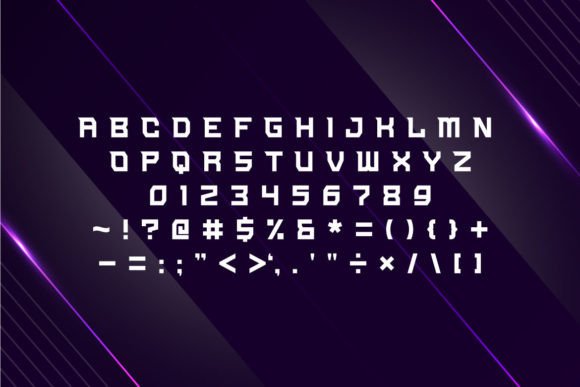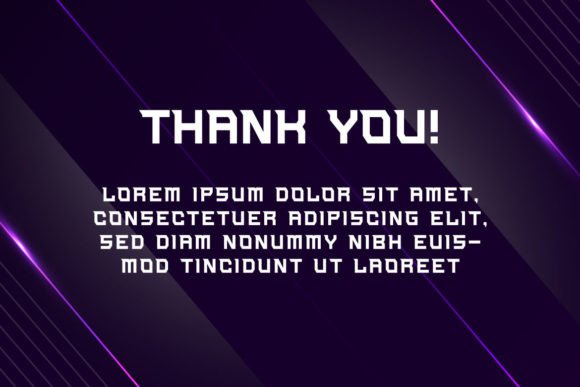
Godan Font: A Modern Display Font for Crafty Ideas
Are you a designer or crafter looking for a unique and modern font to elevate your creative projects? Look no further than Godan Font, a cool and modern display font that’s perfect for a wide range of crafty ideas. In this article, we’ll take a closer look at Godan Font, its features, and how you can use it to take your designs to the next level.
What is Godan Font?
Godan Font is a modern display font designed to make a statement. Its original look is perfect for designers and crafters who want to add a touch of sophistication and elegance to their projects. Whether you’re working on a letterhead, title, or stationery, Godan Font is the perfect choice.
Key Features of Godan Font
So, what makes Godan Font so special? Here are some of its key features:
- Modern and sleek design: Godan Font has a modern and sleek design that’s perfect for designers and crafters who want to create a lasting impression.
- Highly legible: Despite its modern design, Godan Font is highly legible, making it perfect for use in a variety of projects, from titles and headings to body text.
- Versatile: Godan Font is a versatile font that can be used in a wide range of projects, from letterheads and titles to stationery and more.
How to Use Godan Font
Godan Font is perfect for a wide range of crafty ideas, including:
- Letterheads: Use Godan Font to create professional-looking letterheads that make a lasting impression.
- Titles and headings: Godan Font is perfect for use in titles and headings, adding a touch of sophistication and elegance to your projects.
- Stationery: Use Godan Font to create beautiful and elegant stationery that’s perfect for personal or business use.
- Signage: Godan Font is also perfect for use in signage, adding a touch of modernity and sophistication to your signs.
Tips for Using Godan Font
Here are some tips for using Godan Font:
- Use it sparingly: Godan Font is a bold font, so use it sparingly to avoid overwhelming your design.
- Pair it with other fonts: Godan Font looks great when paired with other fonts, so experiment with different combinations to find the perfect look for your project.
- Experiment with different sizes: Godan Font looks great in a variety of sizes, so experiment with different sizes to find the perfect fit for your project.
Godan Font is a modern and sleek display font that’s perfect for designers and crafters who want to add a touch of sophistication and elegance to their projects. With its highly legible design and versatile nature, Godan Font is perfect for use in a wide range of crafty ideas, from letterheads and titles to stationery and more. Whether you’re a seasoned designer or just starting out, Godan Font is a great addition to your font library.